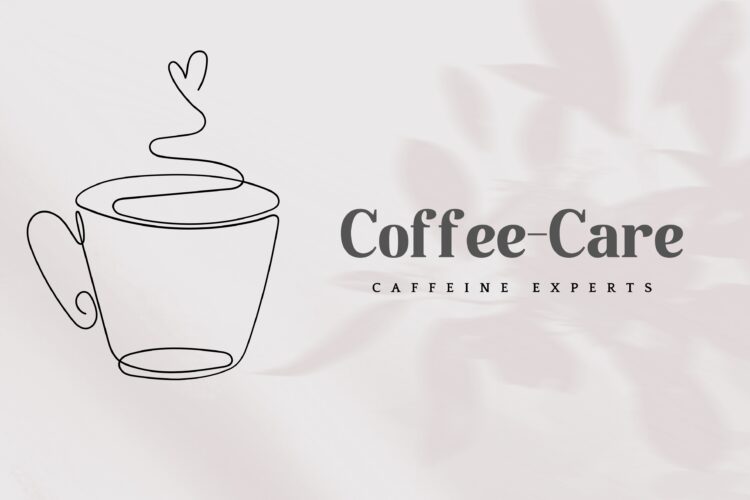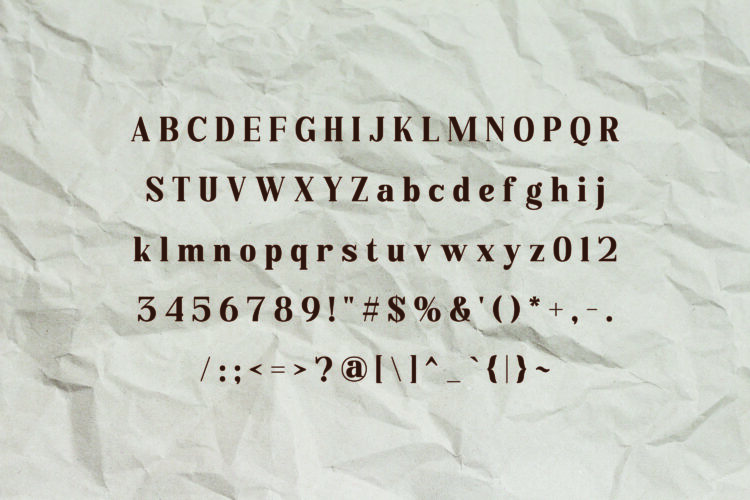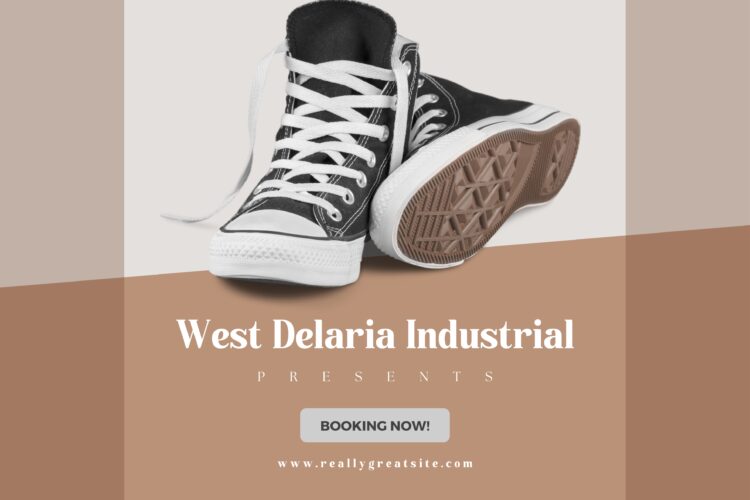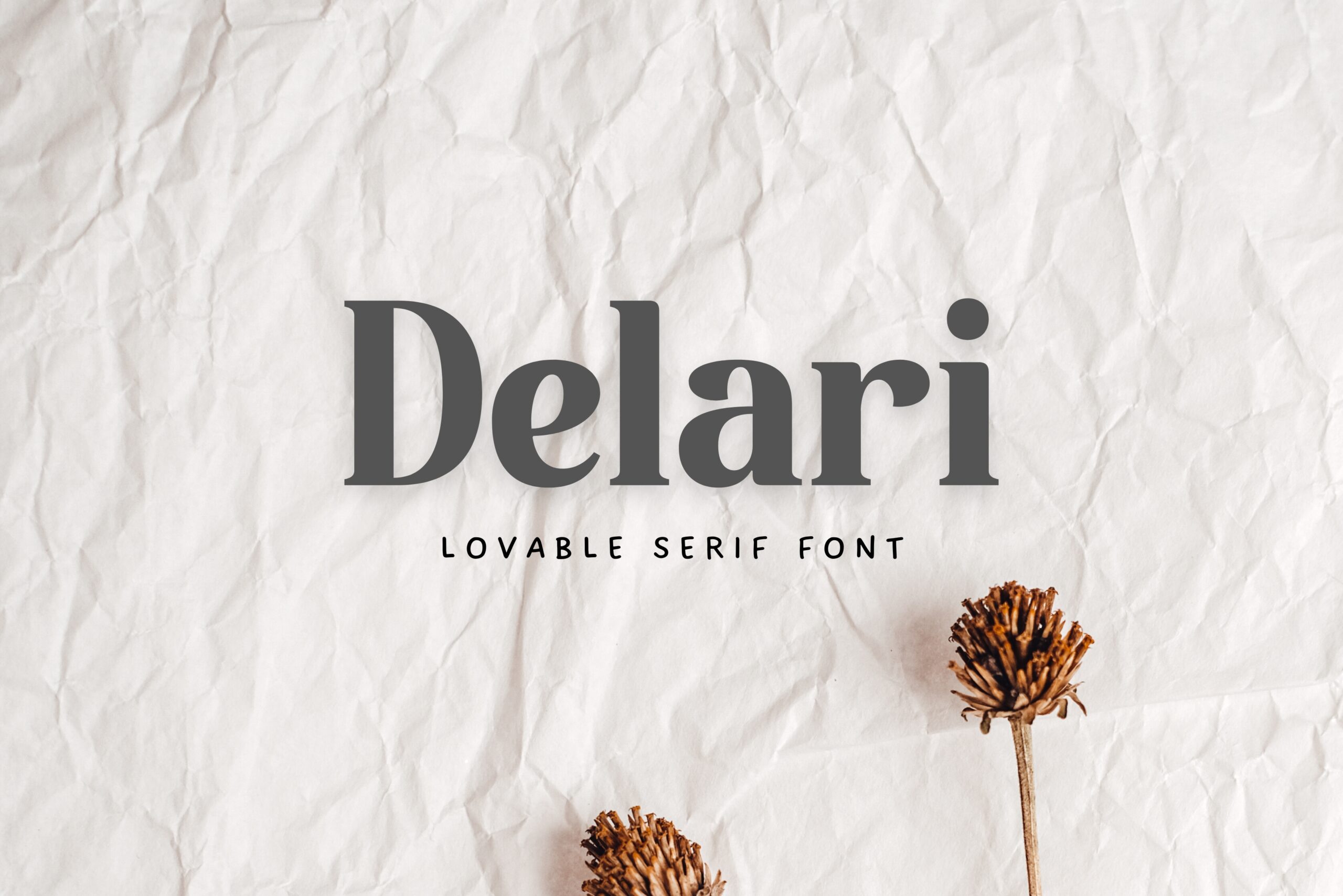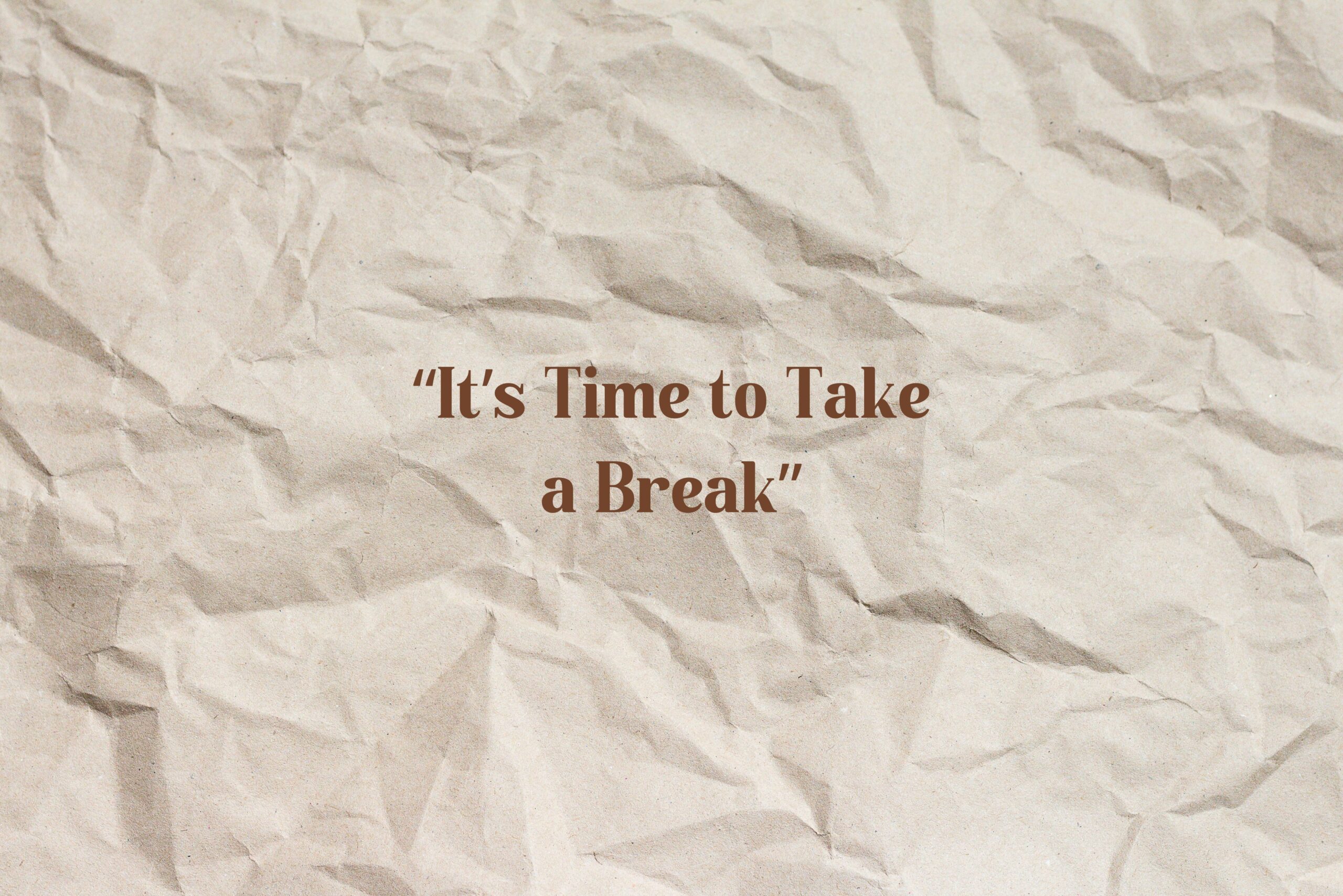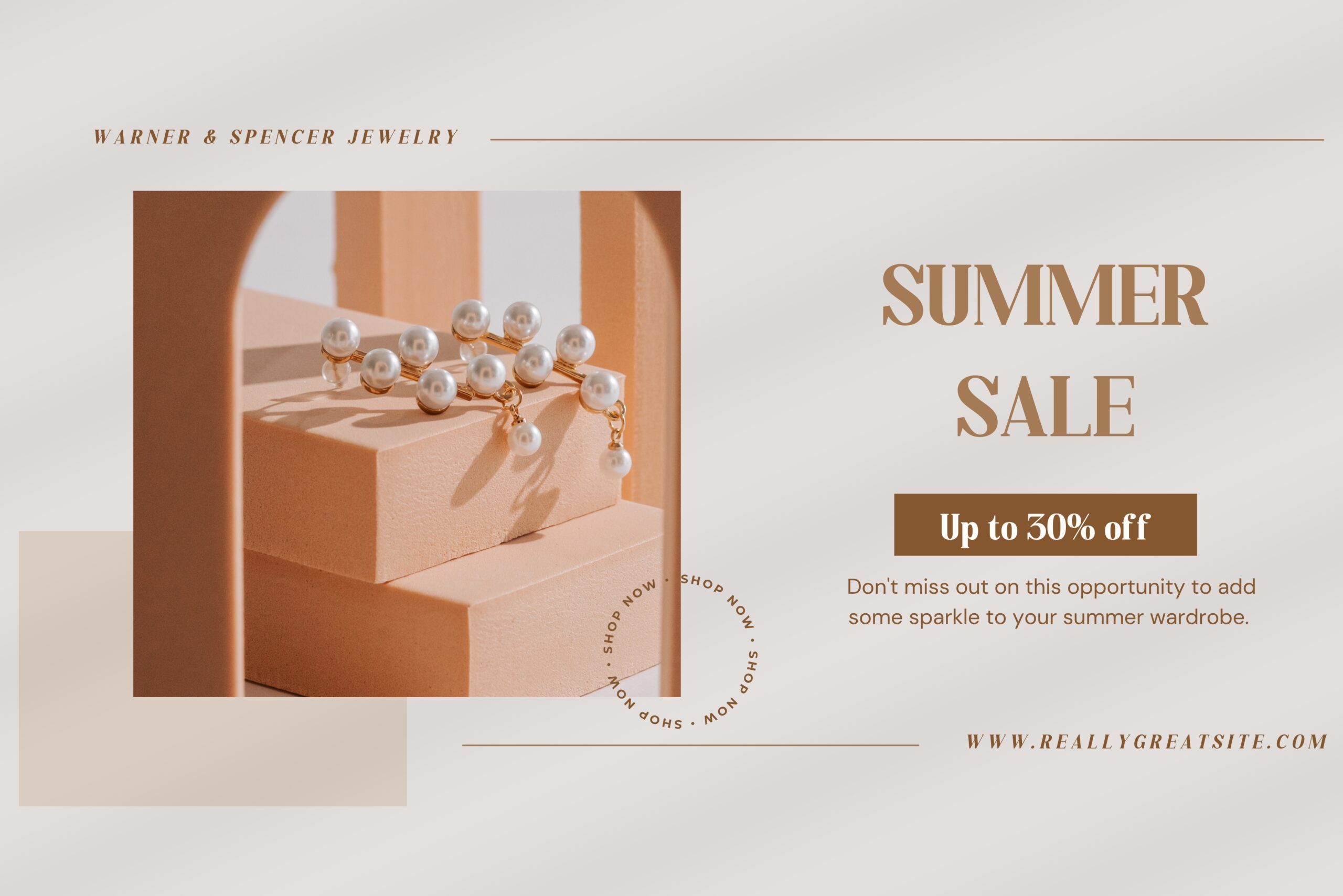
Introducing Delari, a delightful serif typeface that brings a touch of elegance and charm to any project. With its clean lines and perfect thickness, Delari ensures that your text is not only visually appealing but also incredibly easy to read. This modern and loveable font is designed to work seamlessly across a variety of applications, making it an ideal choice for logos, magazines, and other creative products. Whether you’re designing a sleek logo or crafting an eye-catching magazine layout, Delari’s versatility will help your work stand out.
This font comes with a comprehensive set of characters, including uppercase and lowercase letters, numbers, and basic punctuation. Each character is meticulously crafted to maintain consistency and readability, ensuring that your text flows smoothly. Additionally, Delari includes matching italics for every character, providing you with even more design flexibility. This attention to detail makes Delari a reliable and stylish choice for any designer looking to elevate their work.